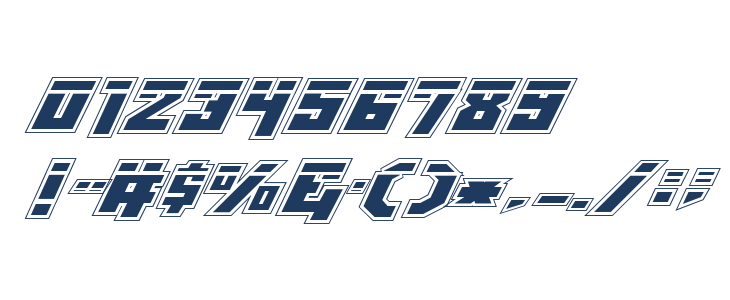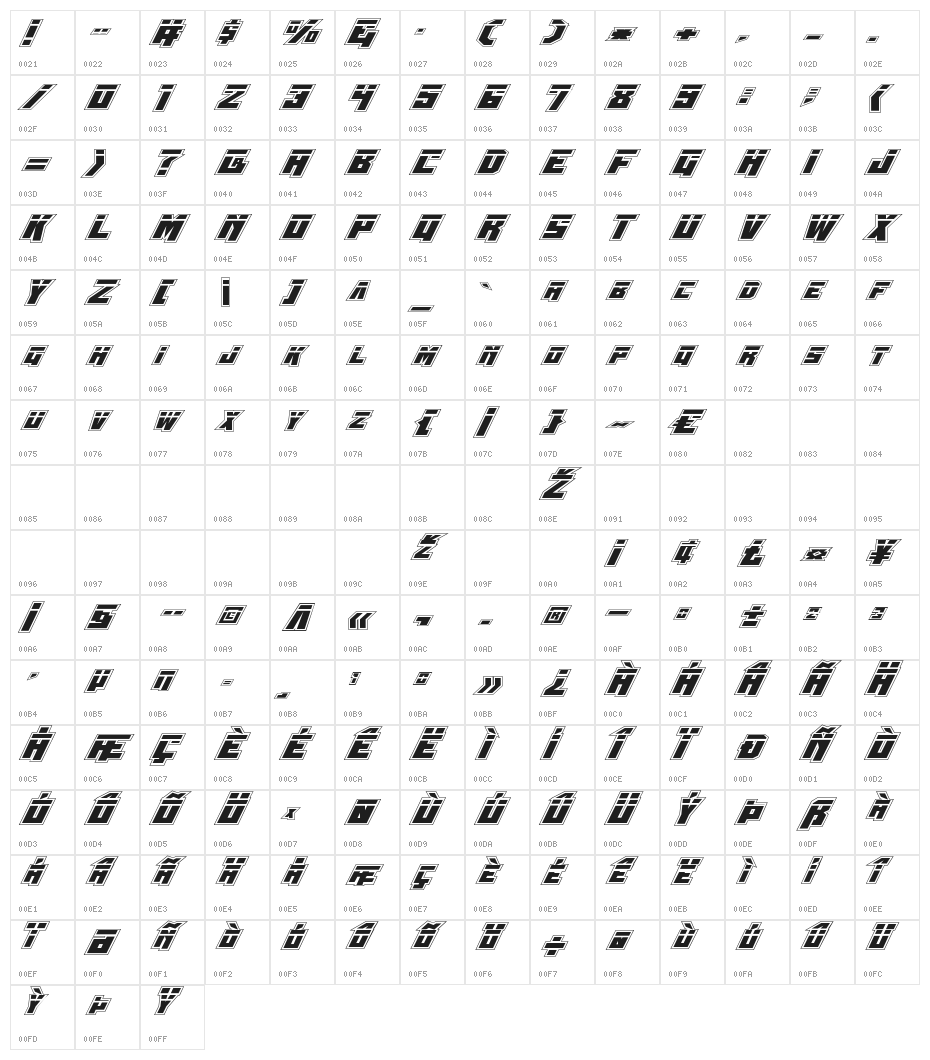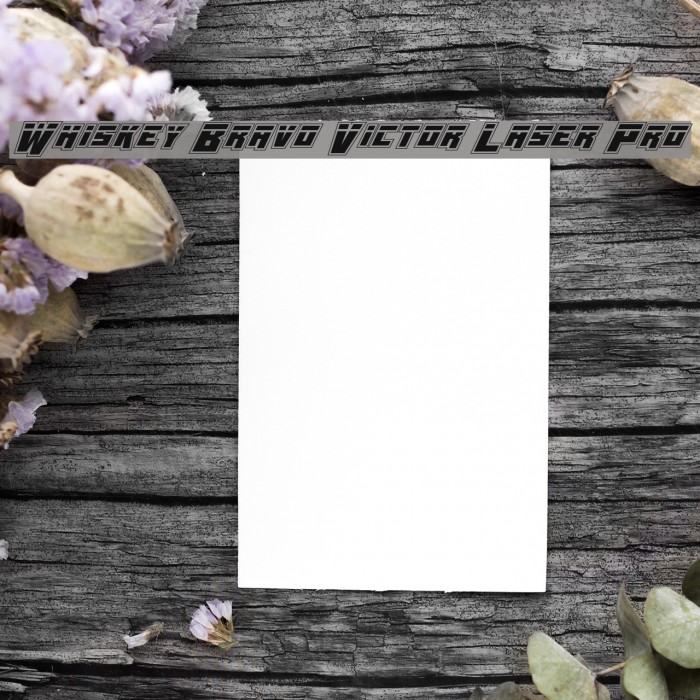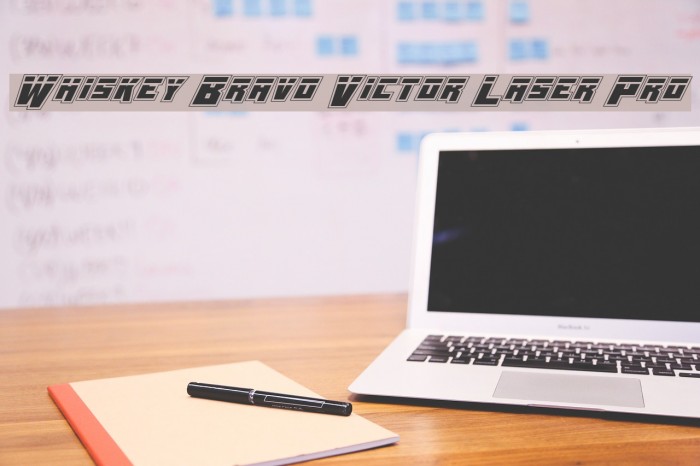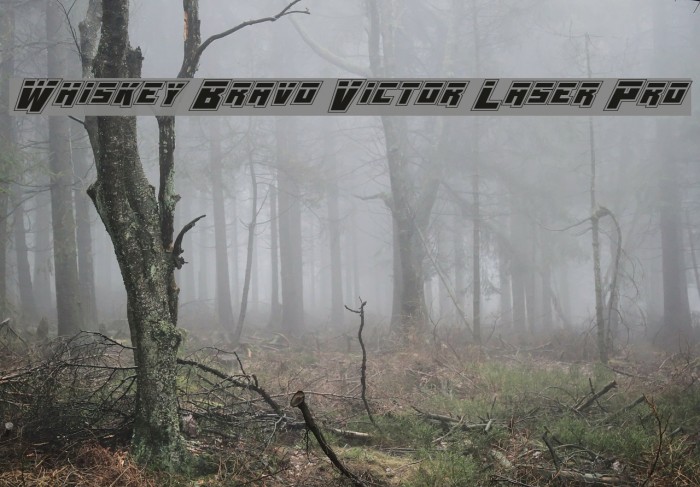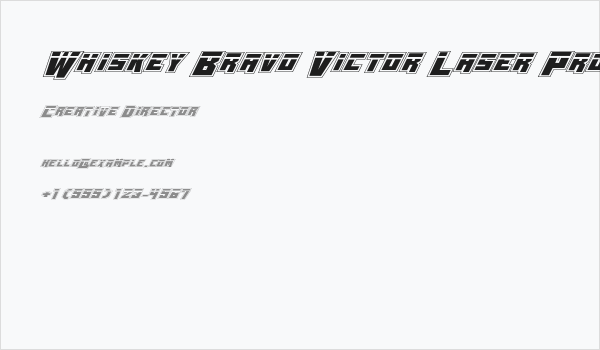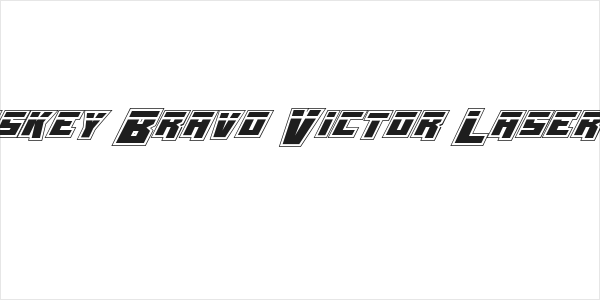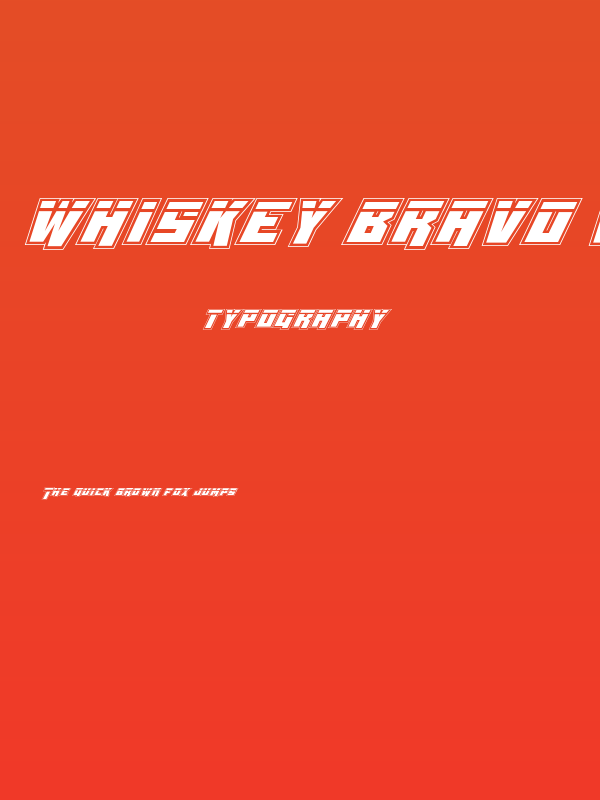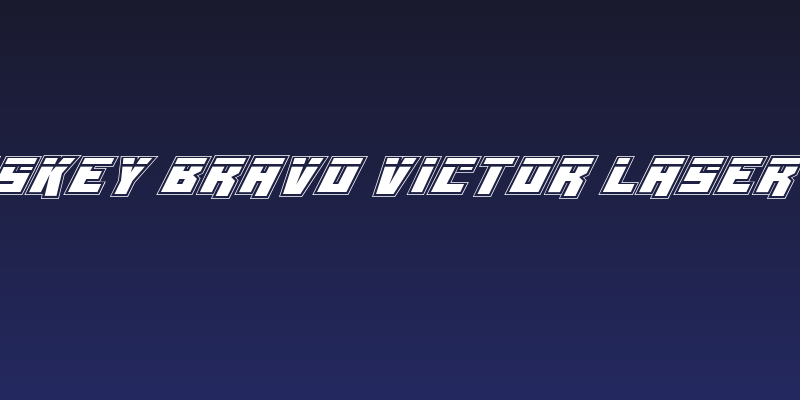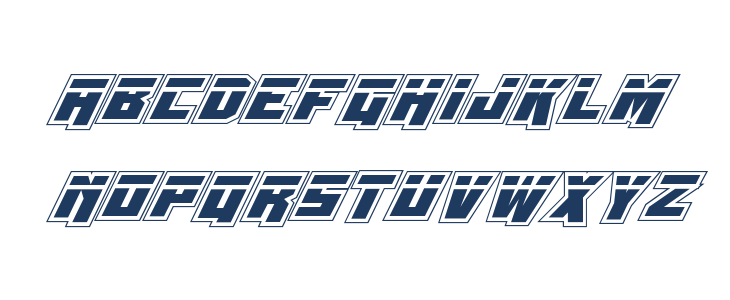
Whiskey Bravo Victor Laser Pro Font
Whiskey Bravo Victor Laser Pro Description
This font features a bold, futuristic design with sharp angles and a three-dimensional effect. The characters are outlined, creating a striking contrast between the solid black interior and the white outline. The uppercase letters are particularly dynamic, with a slanted orientation that suggests movement and speed. The numbers and special characters maintain this energetic style, making the font ideal for attention-grabbing designs. The overall aesthetic is modern and edgy, suitable for projects that require a strong visual impact.
| Proposed Projects | Ideal for sports branding, video game titles, sci-fi movie posters, and dynamic logo designs. |